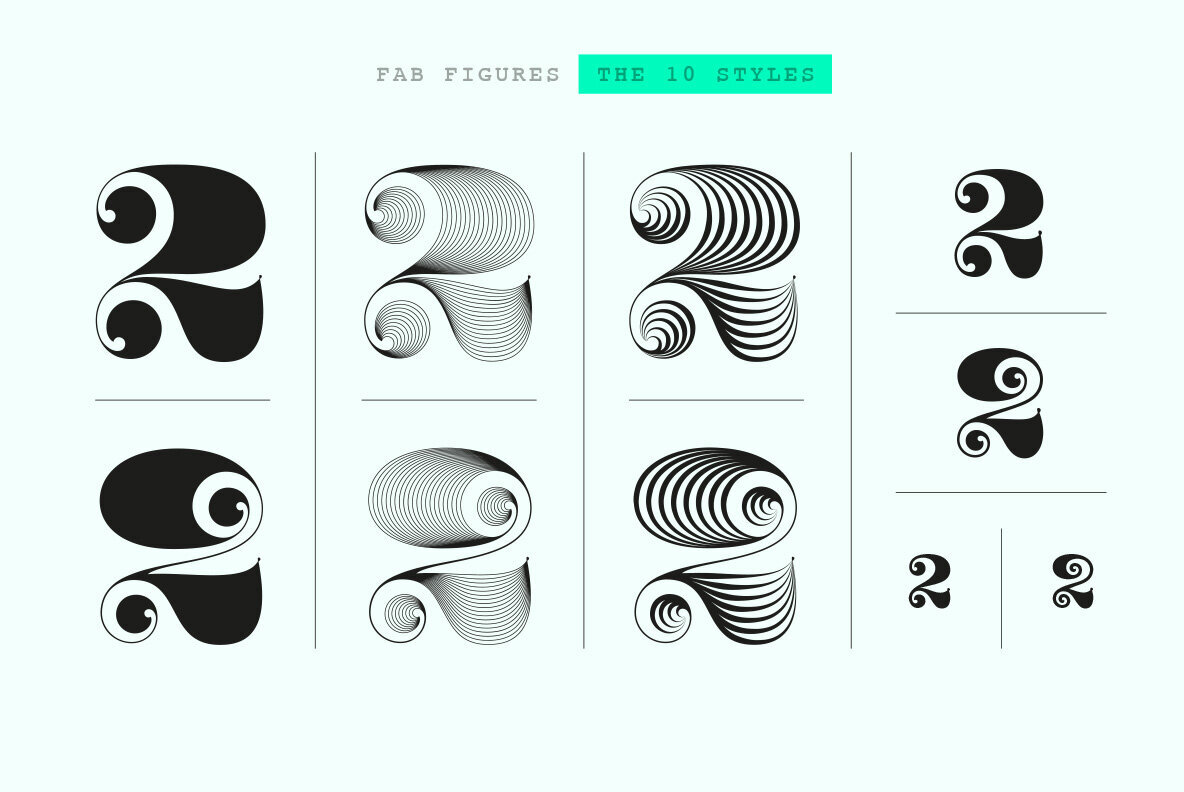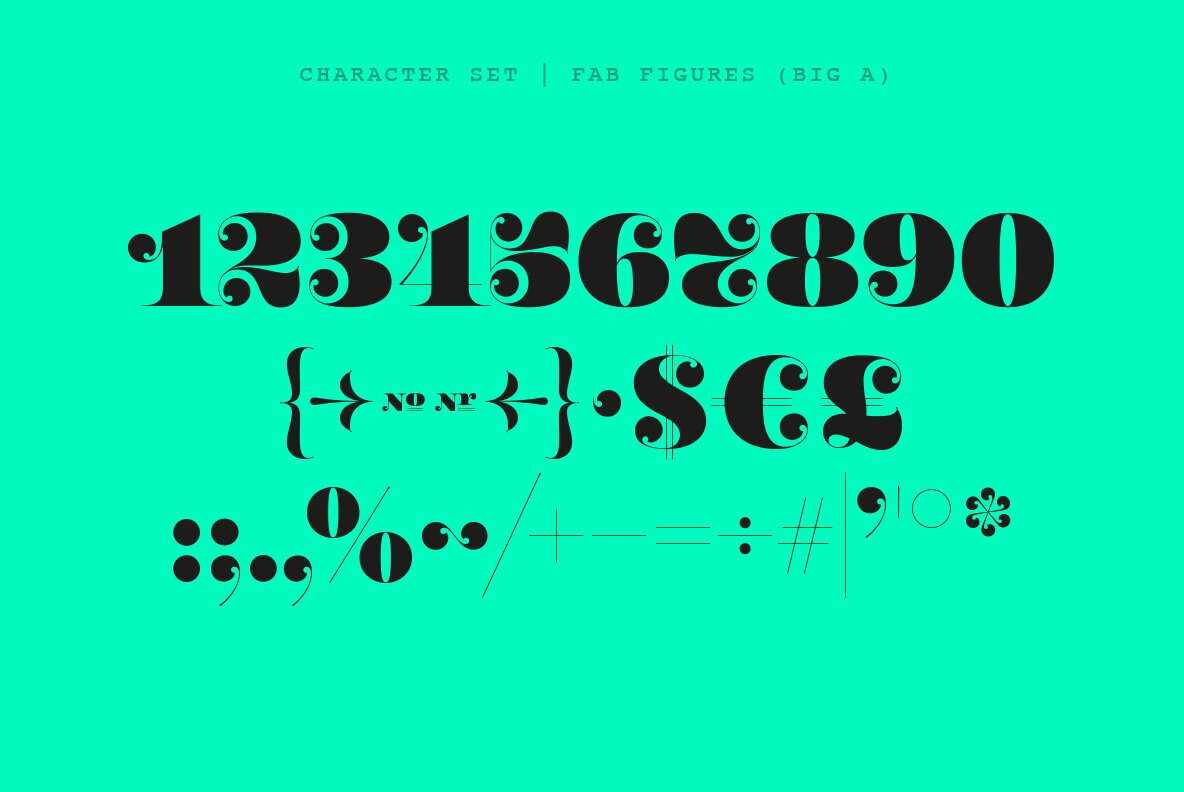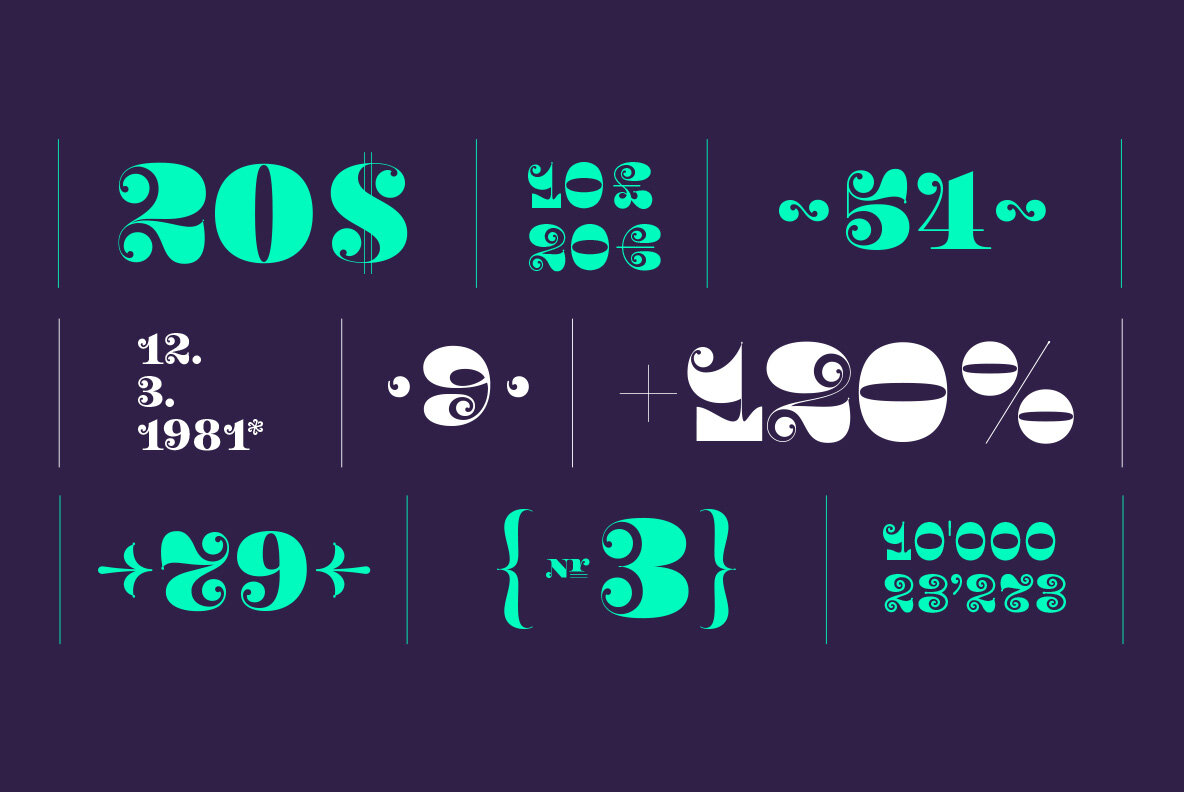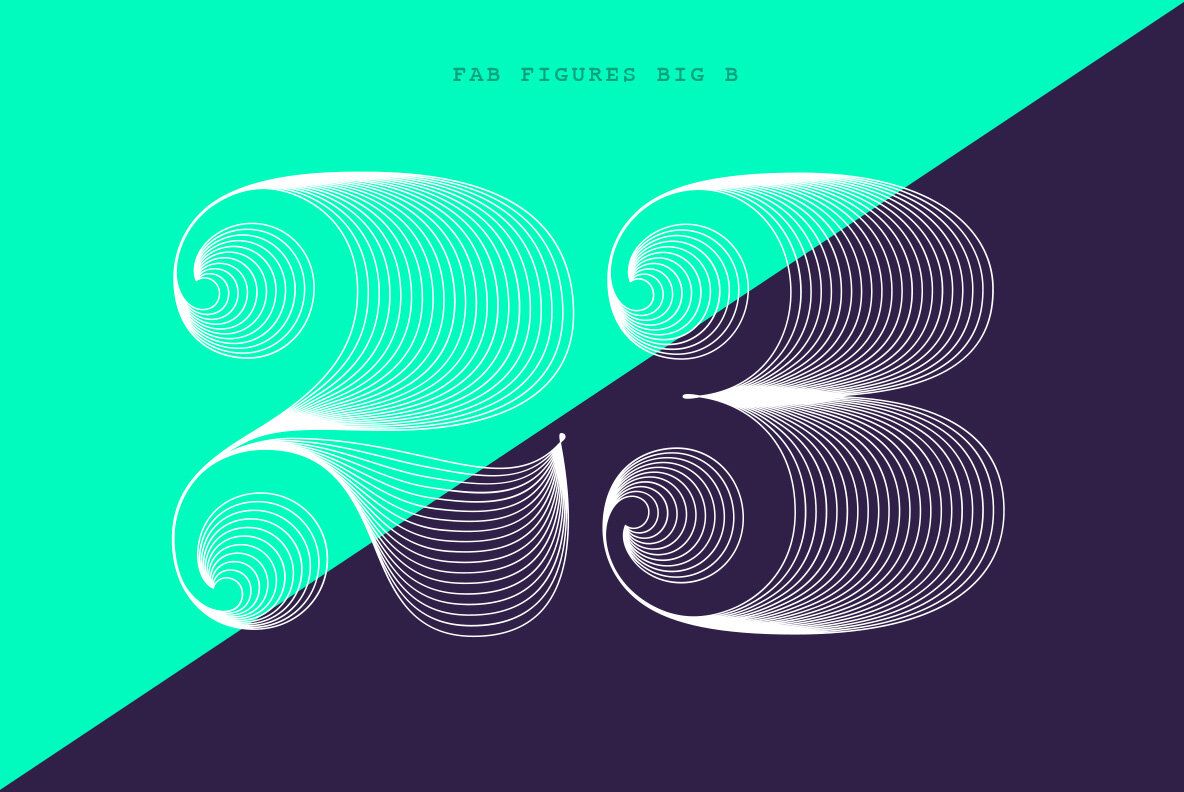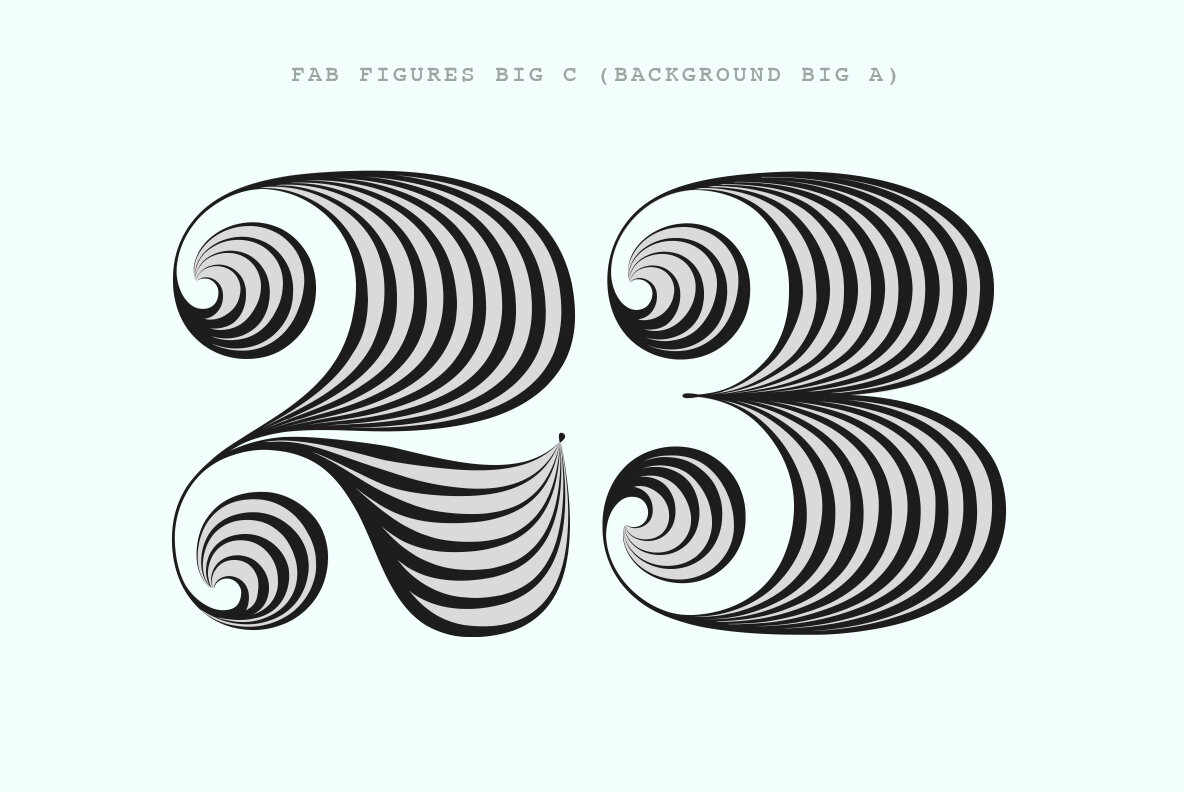
Fab Figures Font
Fab Figures is a numbers-only font. This high contrast display font family with curly terminals is a great choice for posters and infographics. The entire font family consists of 10 styles: 2 styles for big usage, 2 styles for normal usage, 2 styles for small usage and 3 patterned styles (fitting to the big styles). Character Set: 1 2 3 4 5 6 7 8 9 0 | % # • ~ { $ £ € } . , : ; + - = ÷ / ° * ' ’ (Arrows) (No-Symbol) (Nr-Symbol)